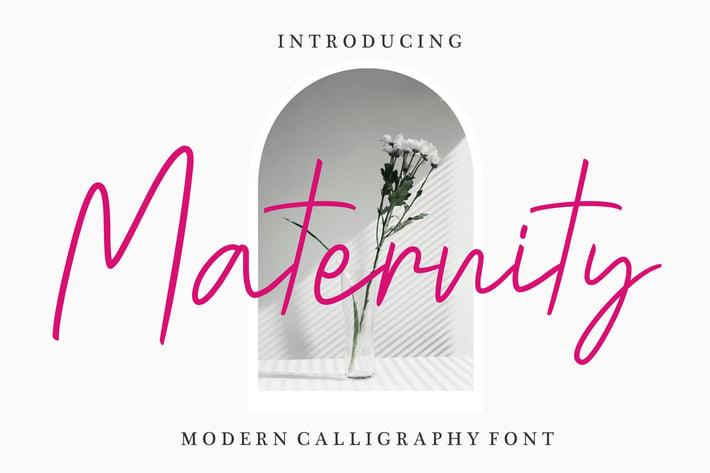
Maternity | Modern Calligraphy Font
Maternity is a modern Calligraphy, beautiful and romantic script font.
This font so beauty and classy, Maternity is great for wedding invitation card designs, logotypes, business card designs, advertisements, product designs, stationery, product packaging, quotes and so on.